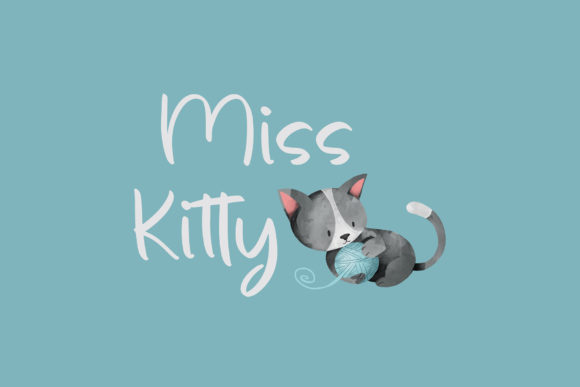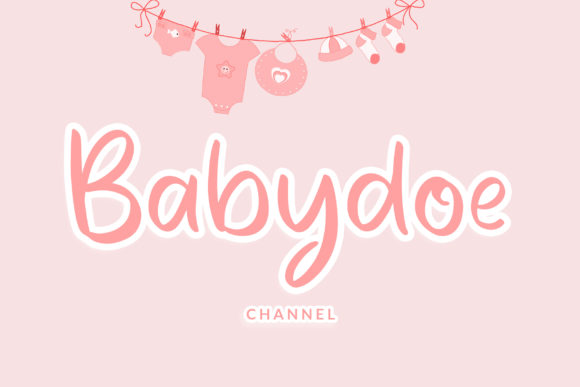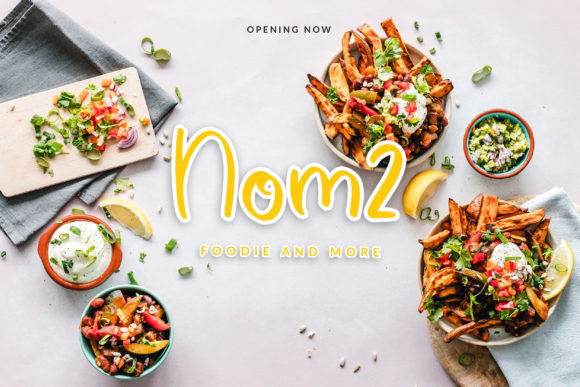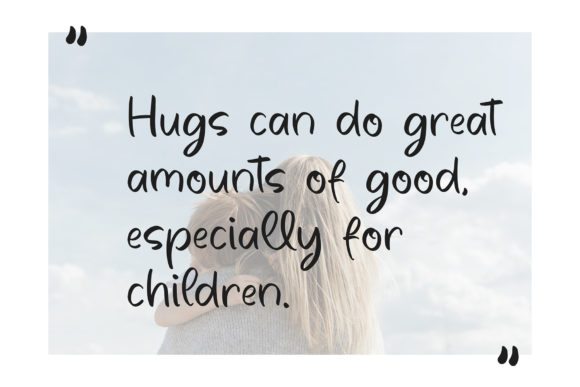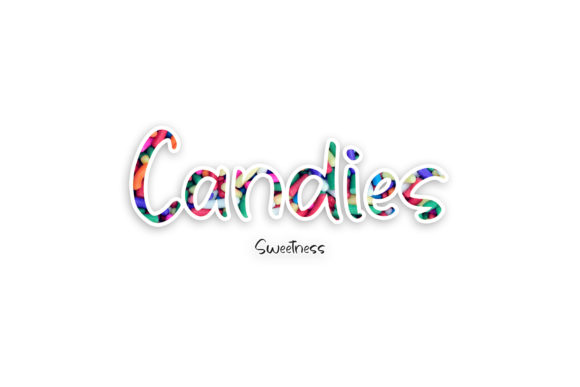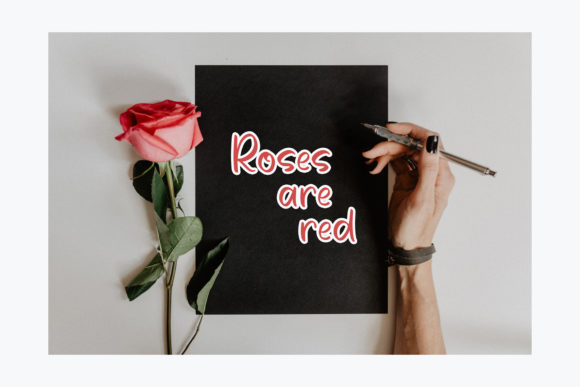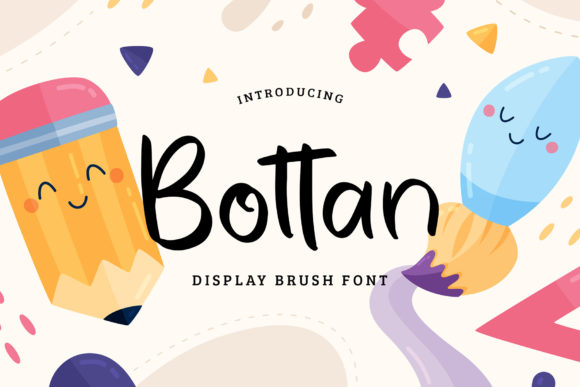
The Ultimate Guide to Bottan Font: Adding a Personal Touch to Your Designs
I’ll never forget the time I was working on a logo design project for a trendy new coffee shop. My client wanted a font that was fun, energetic, and screamed “craft coffee.” I spent hours scouring font websites, but nothing seemed quite right. That was until I stumbled upon Bottan Font. ✨
This fun and brushed handwritten font has become a staple in my design toolkit, and I’m excited to share its awesomeness with you. In this article, we’ll dive into what makes Bottan Font special, its strengths and limitations, and provide a step-by-step guide on how to use it on various design platforms.
An Honest Review of Bottan Font
What I Love About Bottan Font
- ✨ Unique, hand-crafted feel that adds a personal touch to any design
- 💃 Versatile and works well for a variety of design projects, from logos to quotes
- 🎨 Beautifully imperfect, with a charmingly organic feel
While Bottan Font is an amazing addition to any design project, there are a few things to keep in mind: 🤔
- ⚠️ May not be the best choice for very formal or corporate designs, as it has a distinctly casual feel
- ⚠️ Some characters may appear a bit inconsistent in terms of line width and style, but this adds to its charm
The Story Behind Bottan Font
Bottan Font was designed with the intention of creating a font that felt approachable, friendly, and fun. Its creator wanted to craft a font that would add a personal touch to any design project, without being too formal or corporate.
| Font Name | Bottan Font |
| Author | Giant Design |
Q: What type of projects is Bottan Font best suited for?
A: Bottan Font is perfect for creating eye-catching logos, branding, and quotes. Its unique, hand-crafted feel makes it ideal for projects that require a personal touch.
Q: Is Bottan Font available in different weights or styles?
A: Bottan Font comes in a single weight, but its unique, hand-crafted feel makes it versatile enough to work well for a variety of design projects.